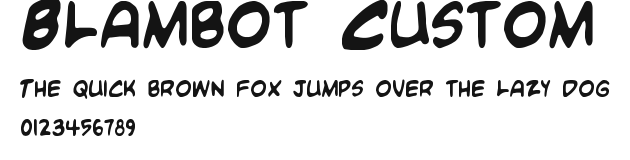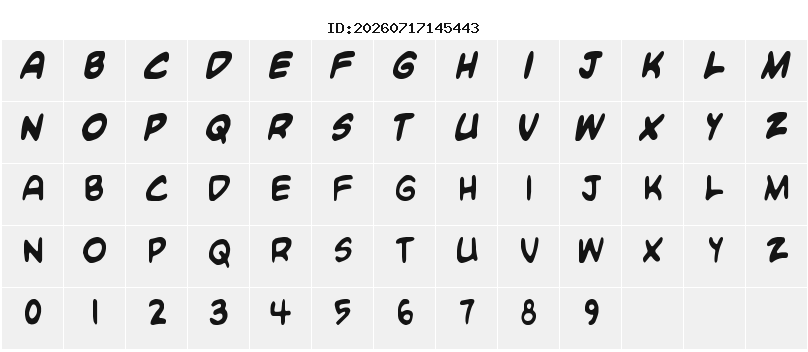
• Font Name: Blambot Custom
About Blambot Custom.ttf
Blambot Custom.ttf is a modern, elegant sans-serif font designed for ultimate readability and visual harmony. Perfect for branding, headlines, web design, and print materials.